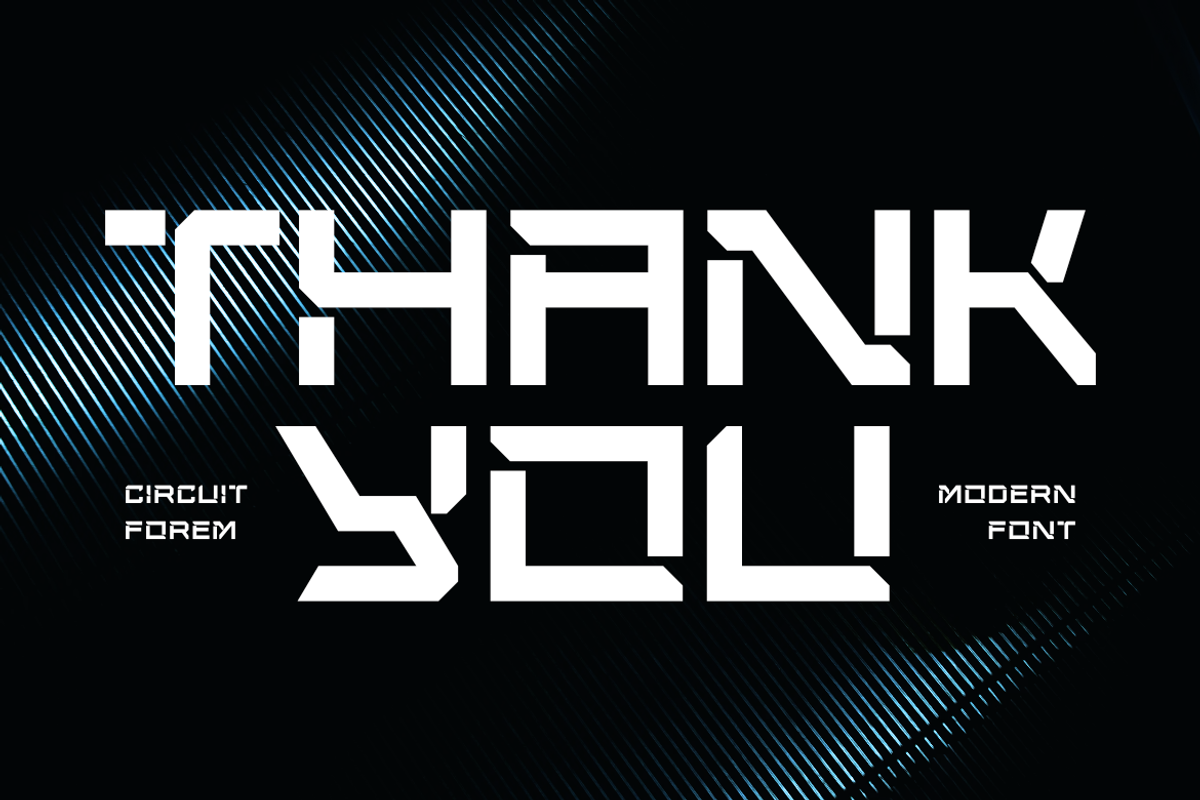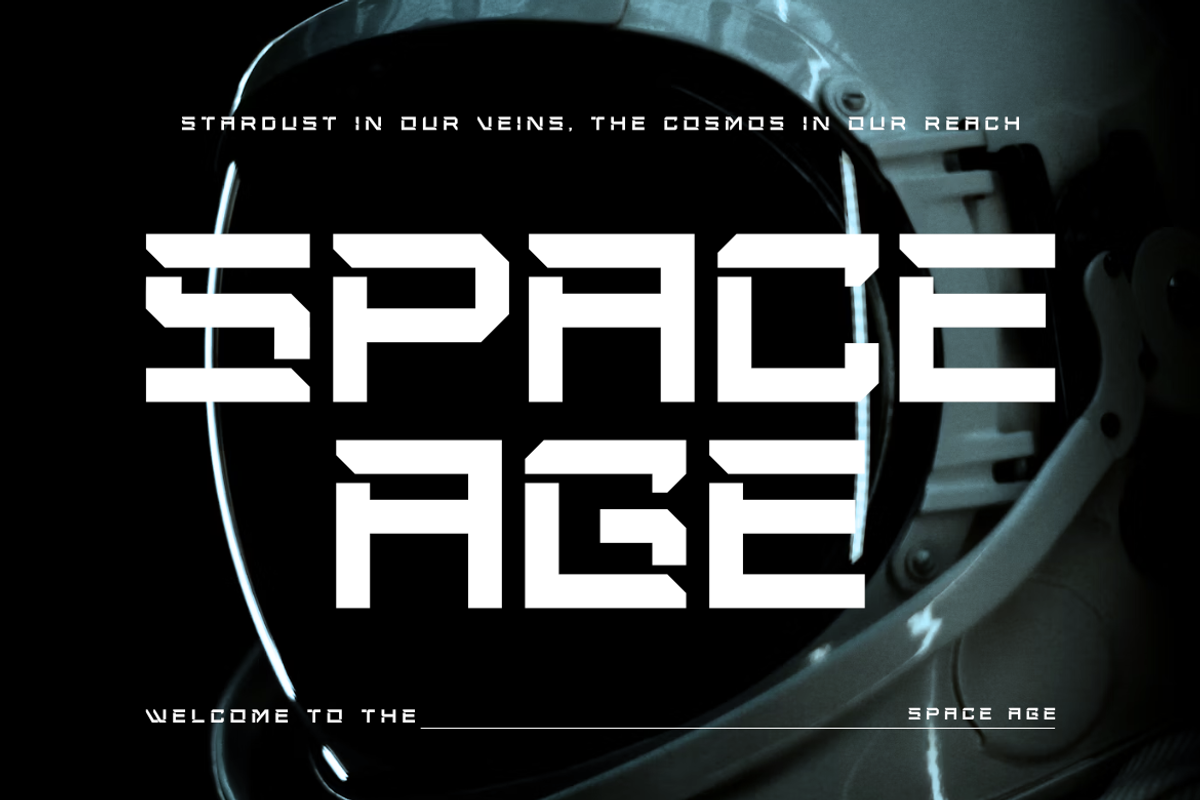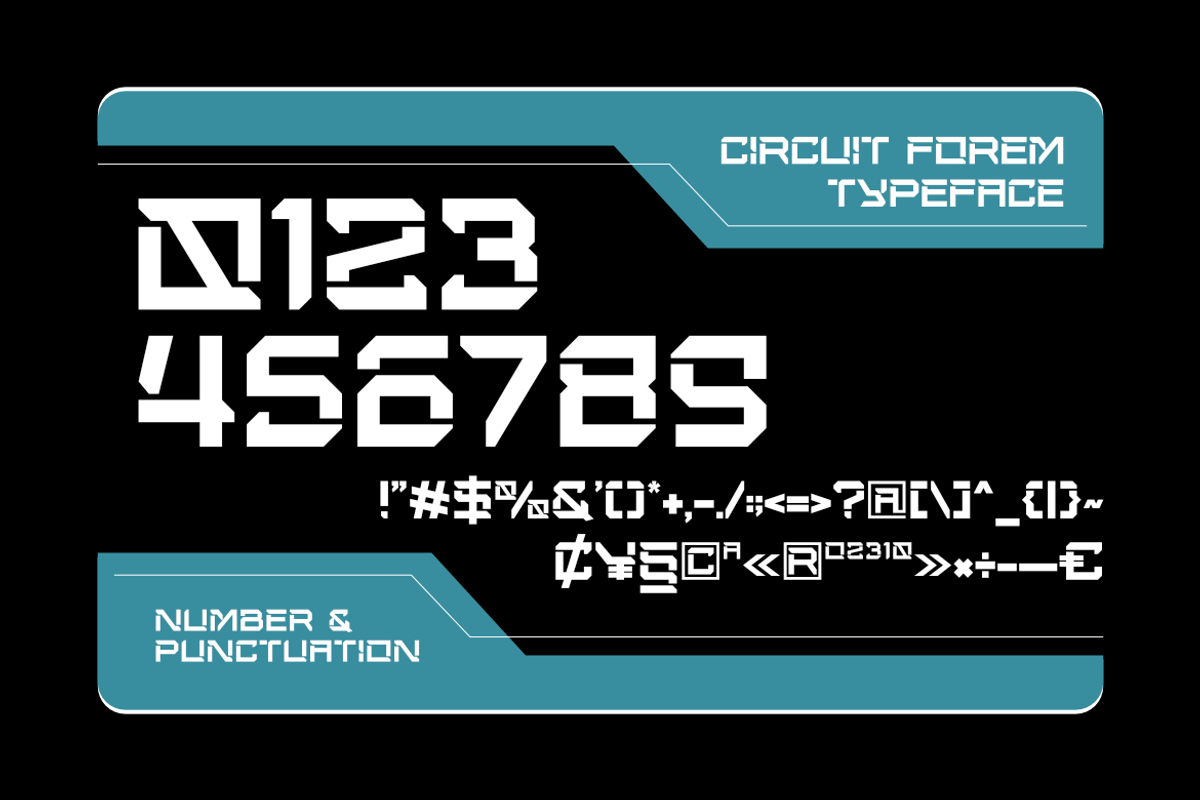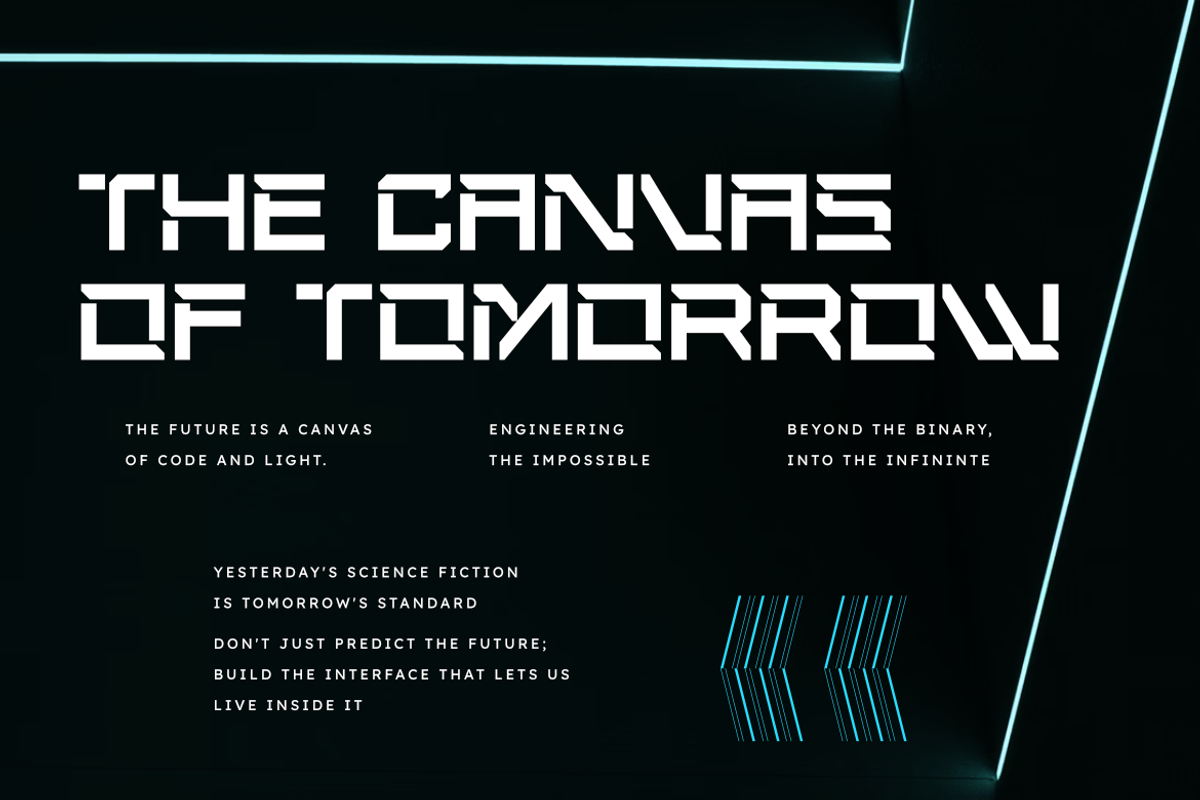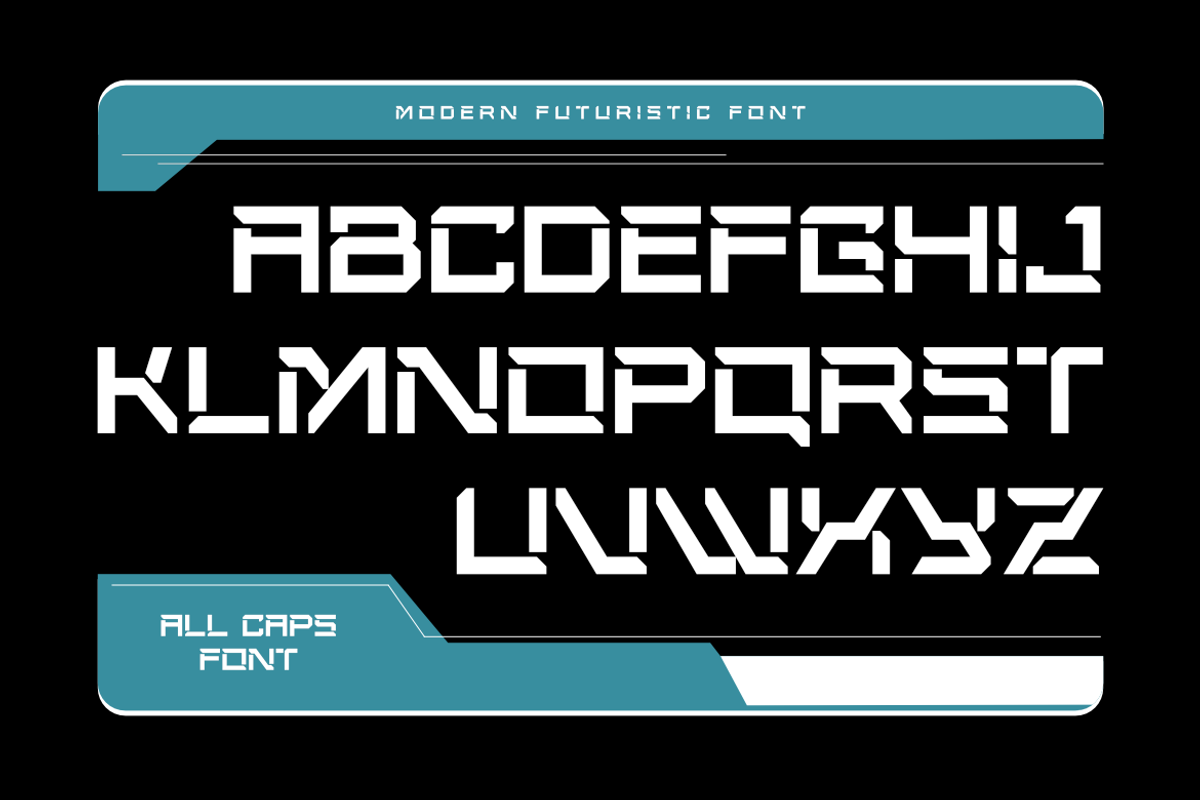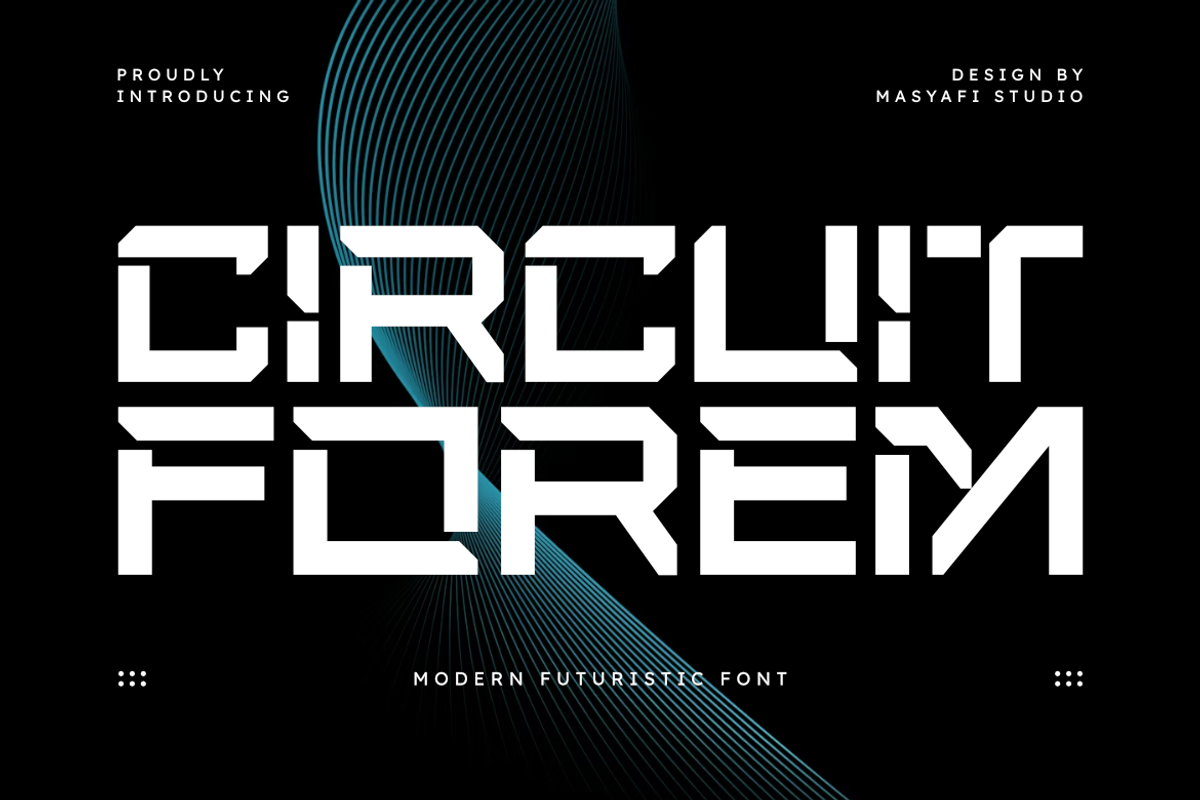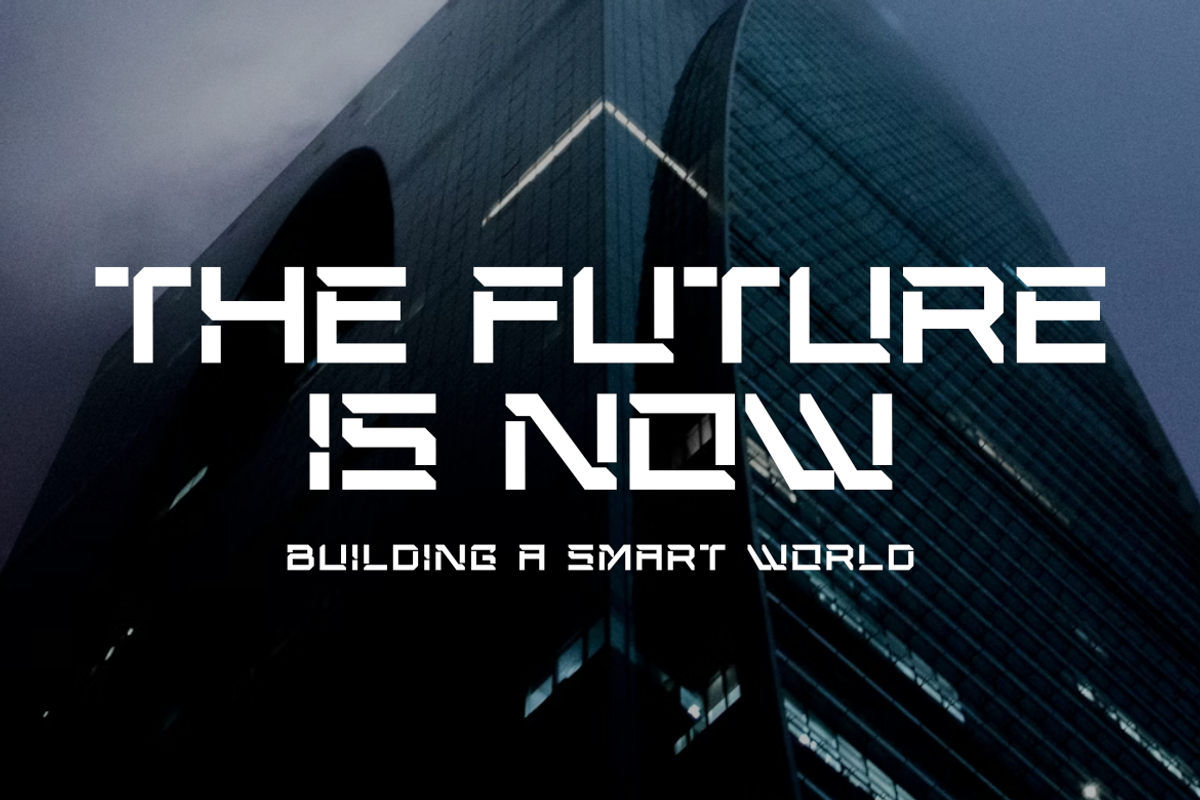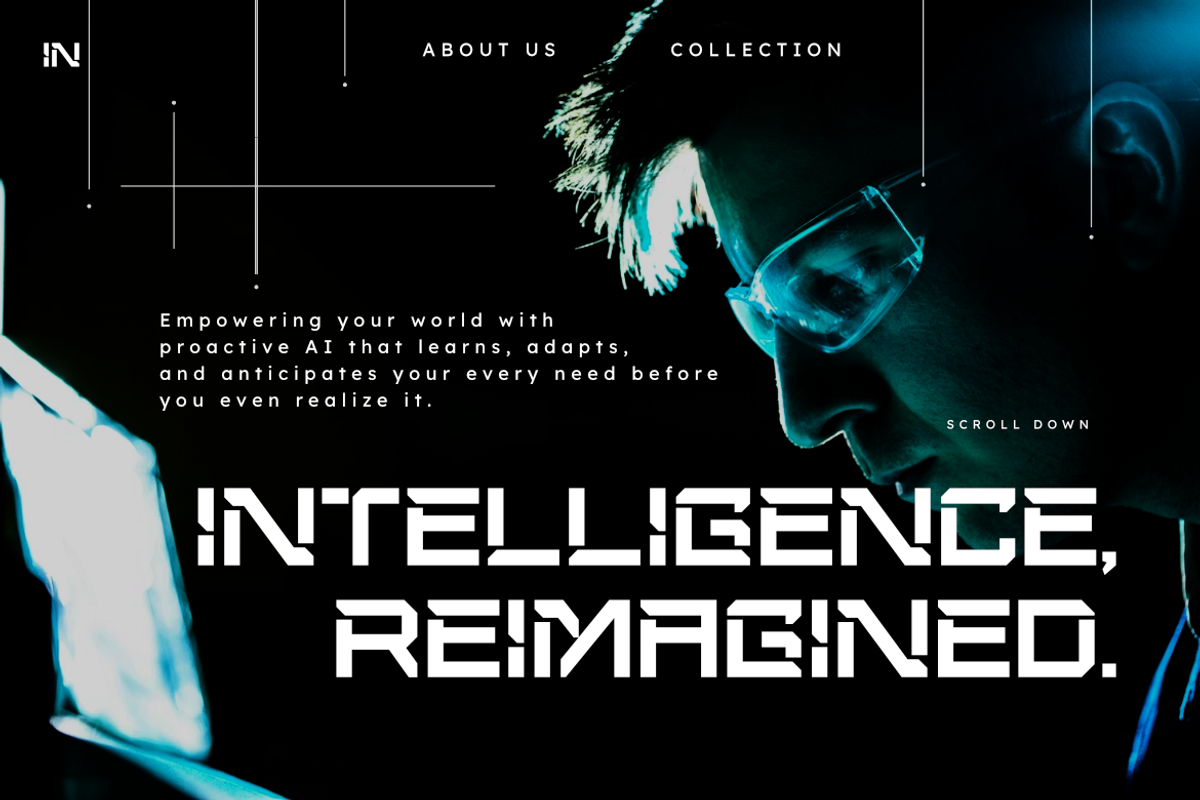
Circuit Forem | Futuristic Techno
Power up your designs with Circuit Forem, a modern futuristic font from Masyafi Studio. This typeface is a masterclass in geometric precision, blending mechanical rigidity with a dynamic flow that screams innovation and future-ready style.
Circuit Forem was crafted specifically for high-energy projects. Its unique "circuit-inspired" construction makes it stand out in any digital landscape. Use it to define the visual identity of a new tech brand, create aggressive sports apparel, or design an immersive gaming UI.
Designed For Maximum Impact In: Gaming & eSports: Perfect for team logos, streaming overlays, and UI design. Technology & AI: Ideal for brands focused on innovation and software development. Sports & Automotive: Great for bold headlines, racing graphics, and fitness branding. Entertainment: Excellent for movie titles, posters, and sci-fi book covers.